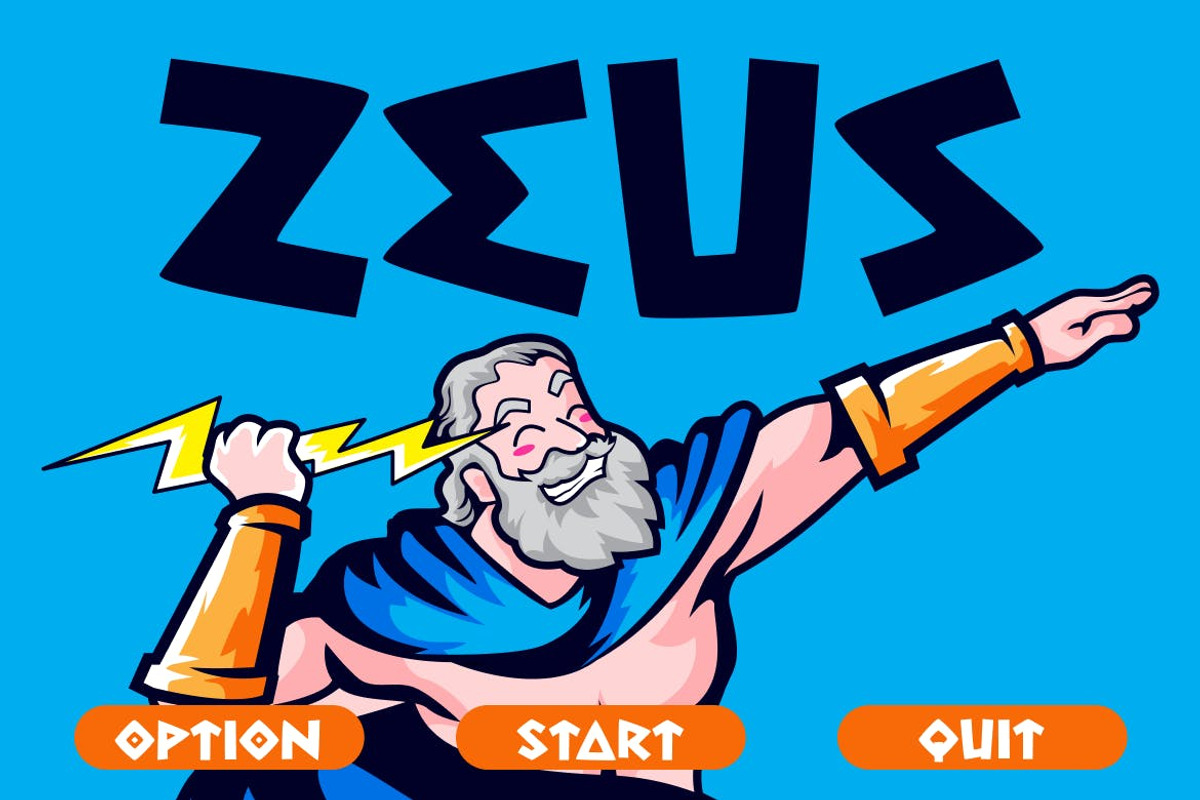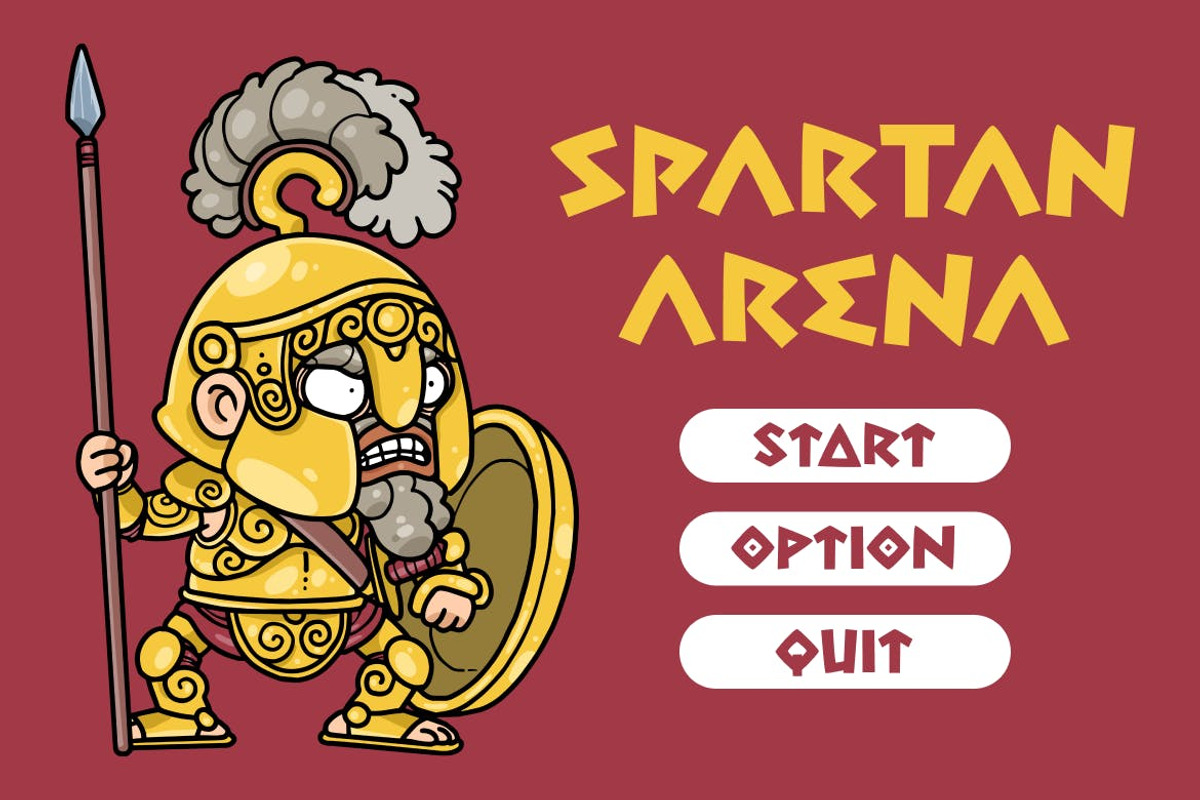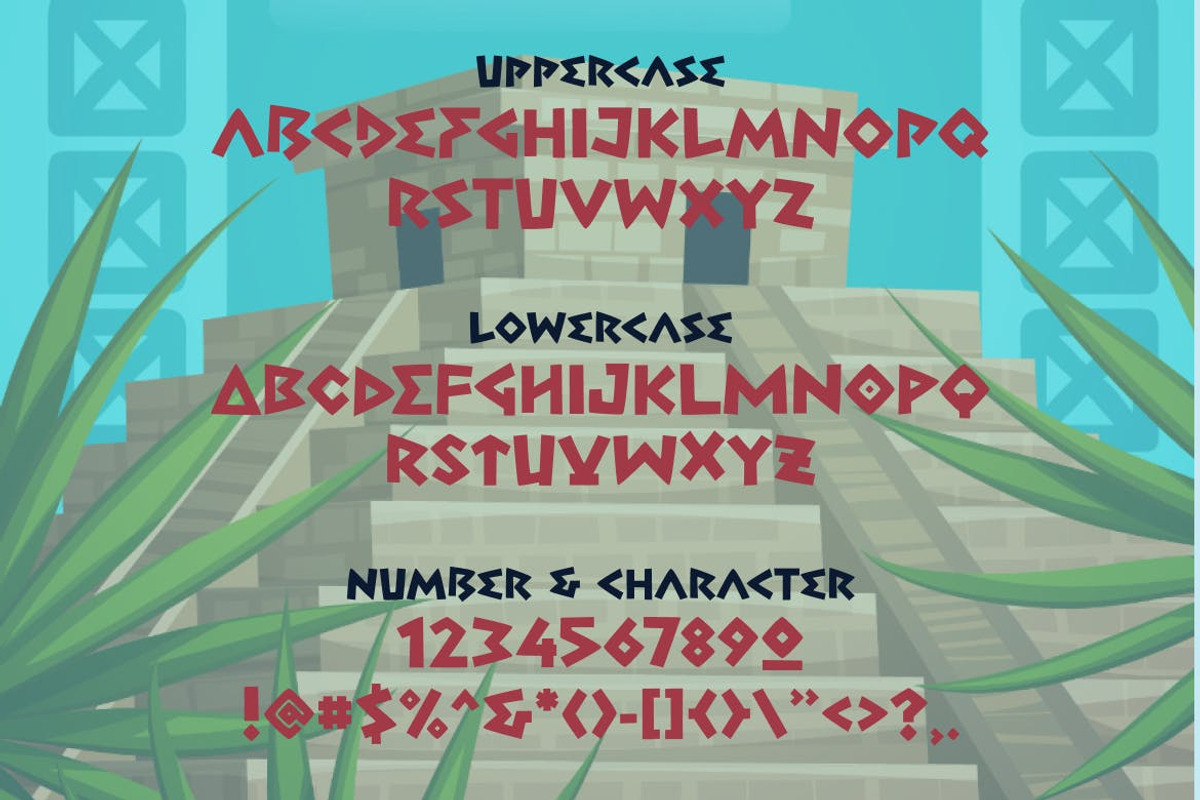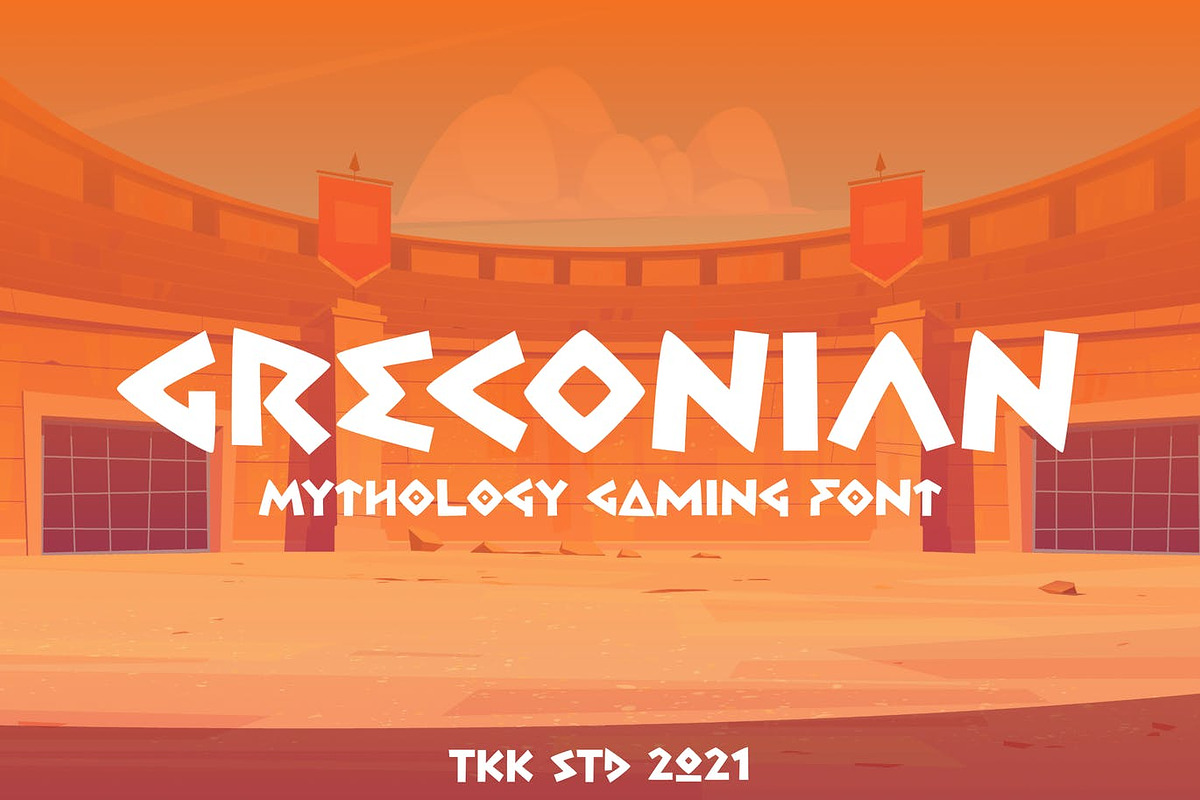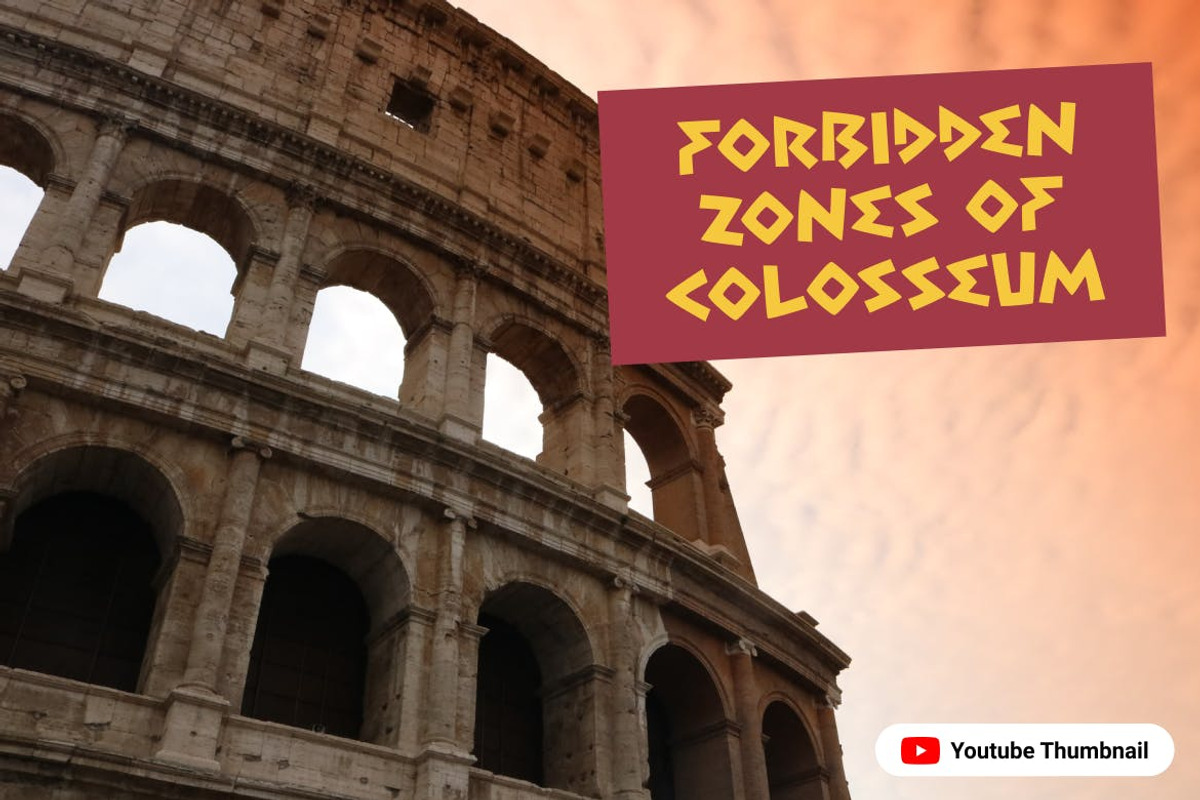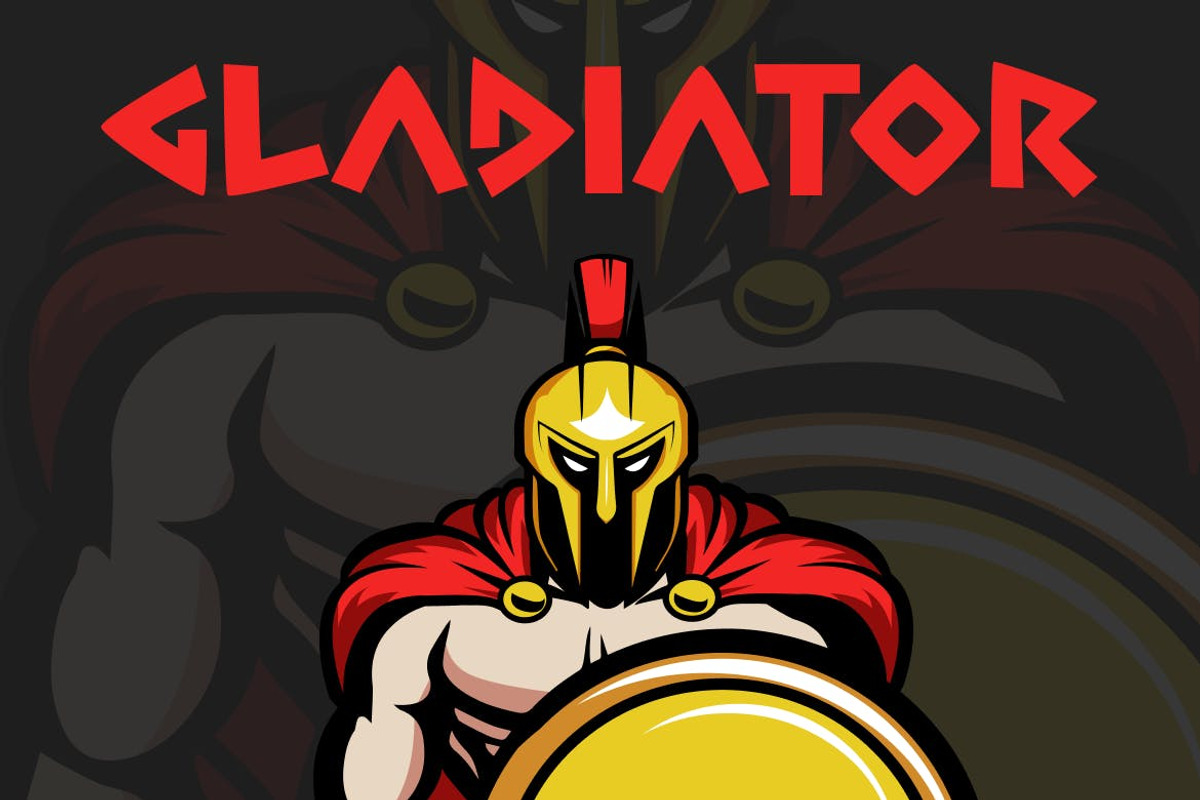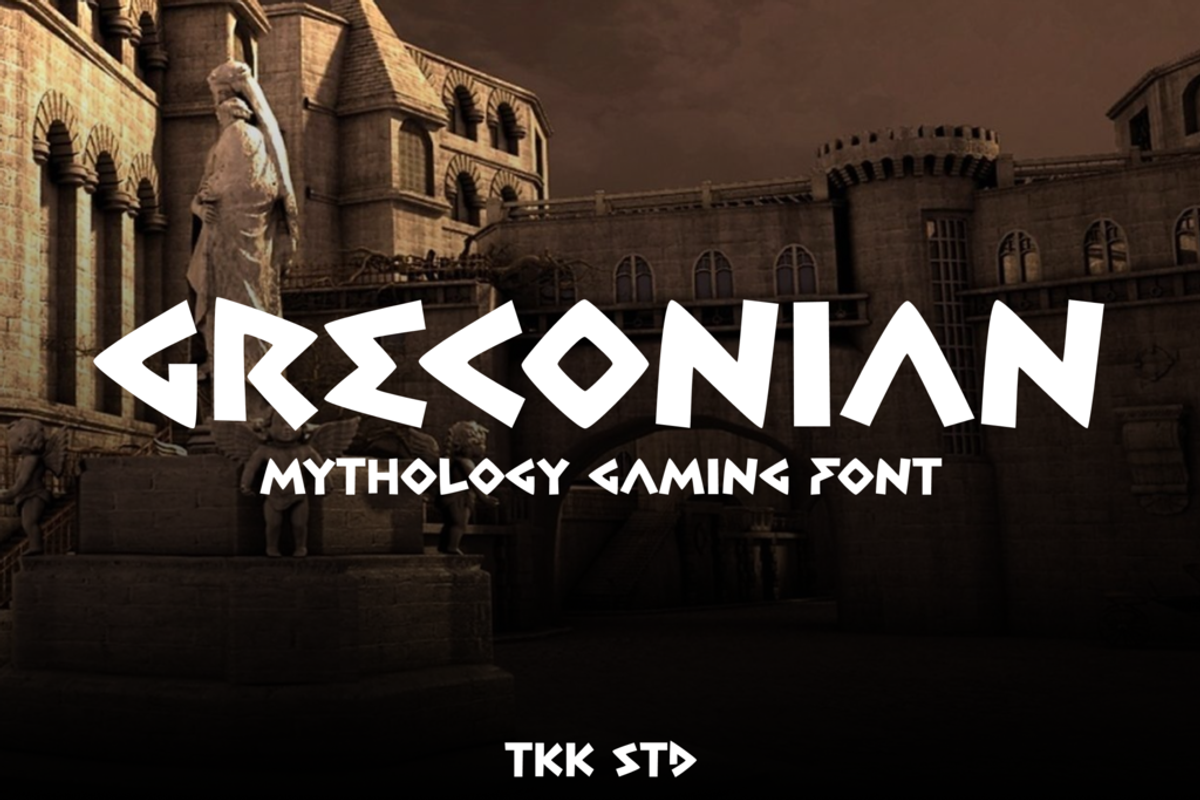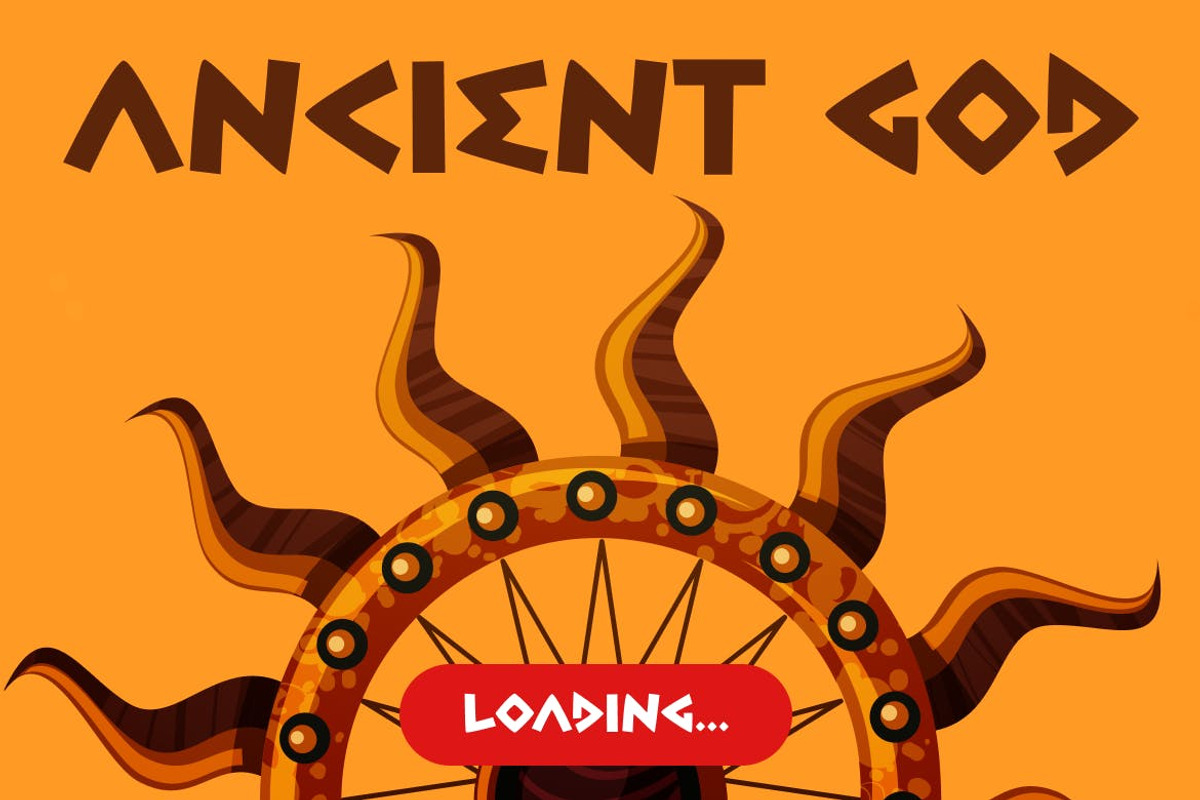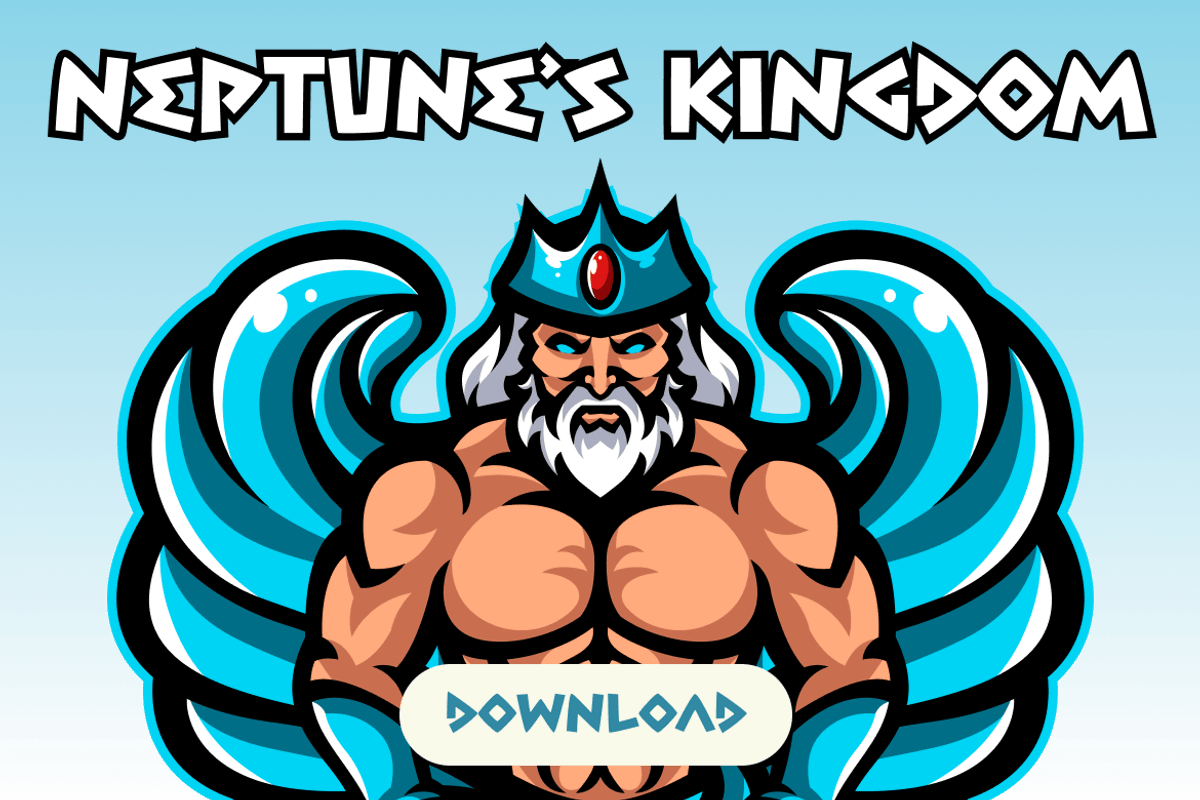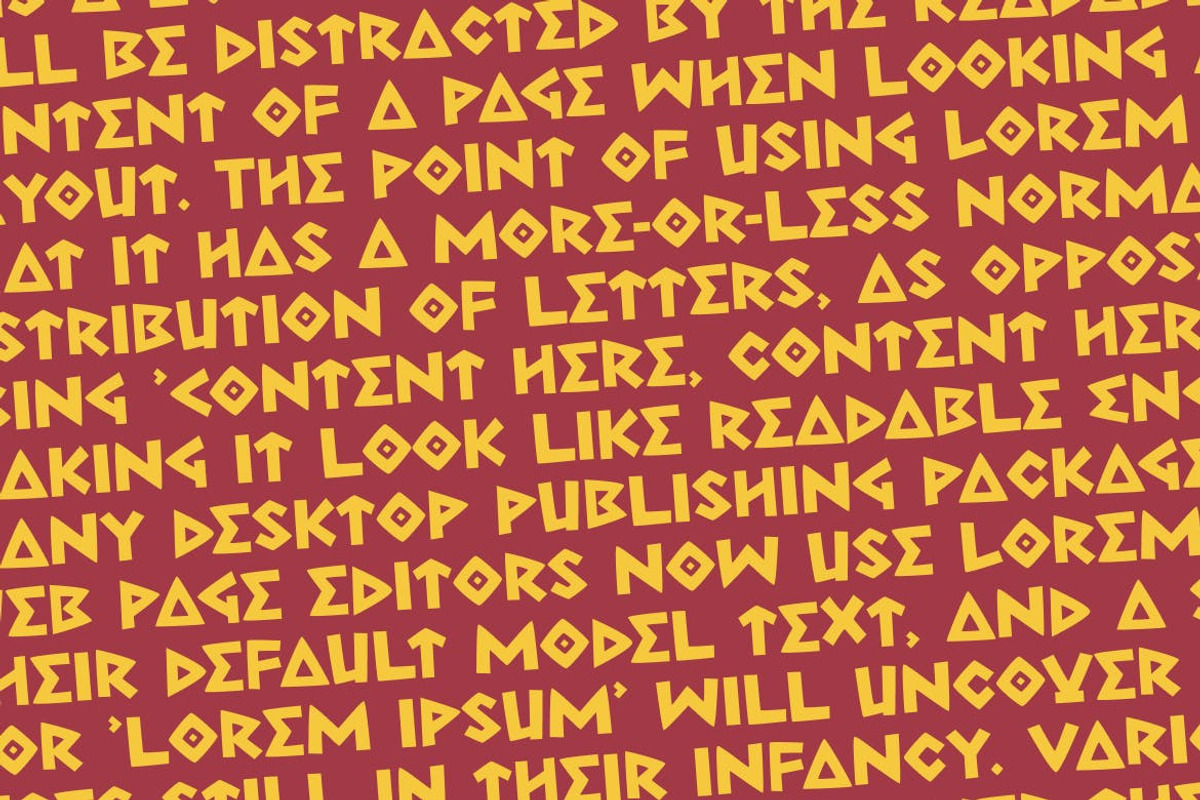
Greconian - Gaming Font
Greconian gaming font it feels like we witness the day Achilles defeat his enemy, the day when Zeus rule the entire greek myth world, the day when Gladiator fight the lion on the colesseum. It feels majestic and elegant, but yet, still bring the agressiveness.
Suit perfectly for Online Games, vintage logo, surfing apparel, beach poster, movie title, street magazine, youtube covers, youtube thumbnails, social media page covers and so on…